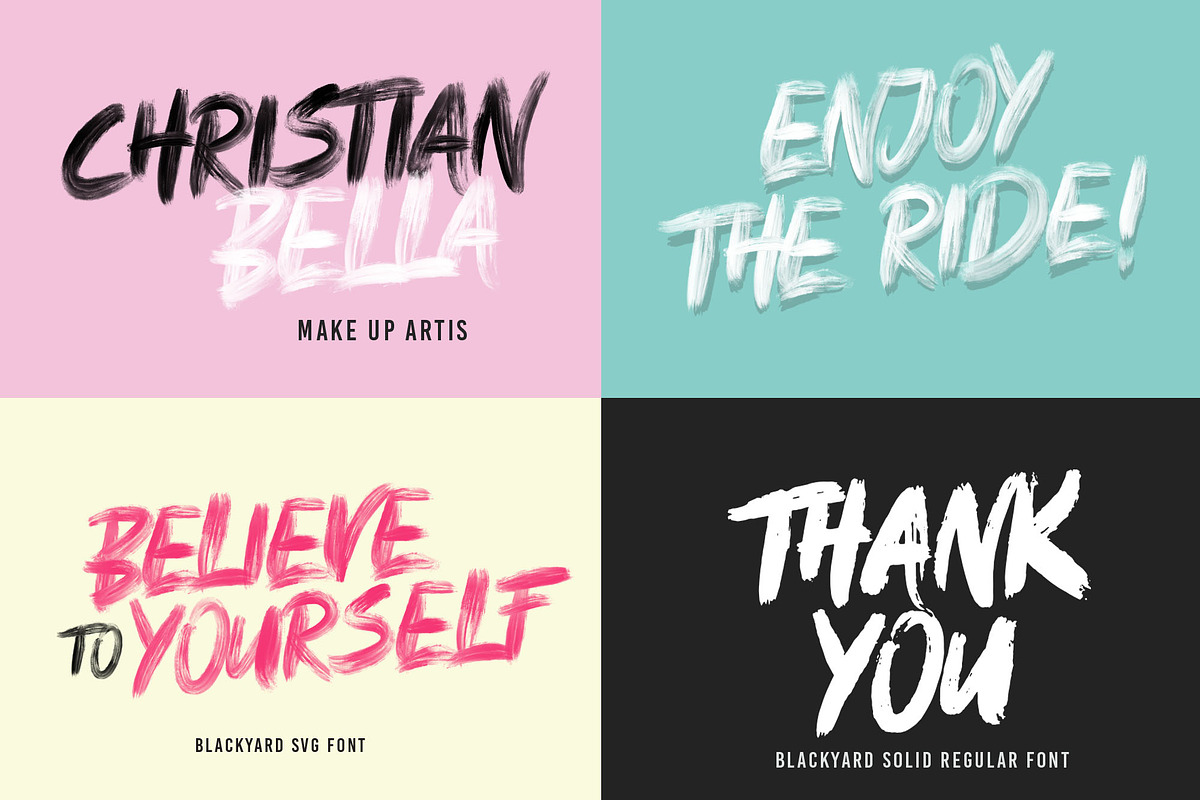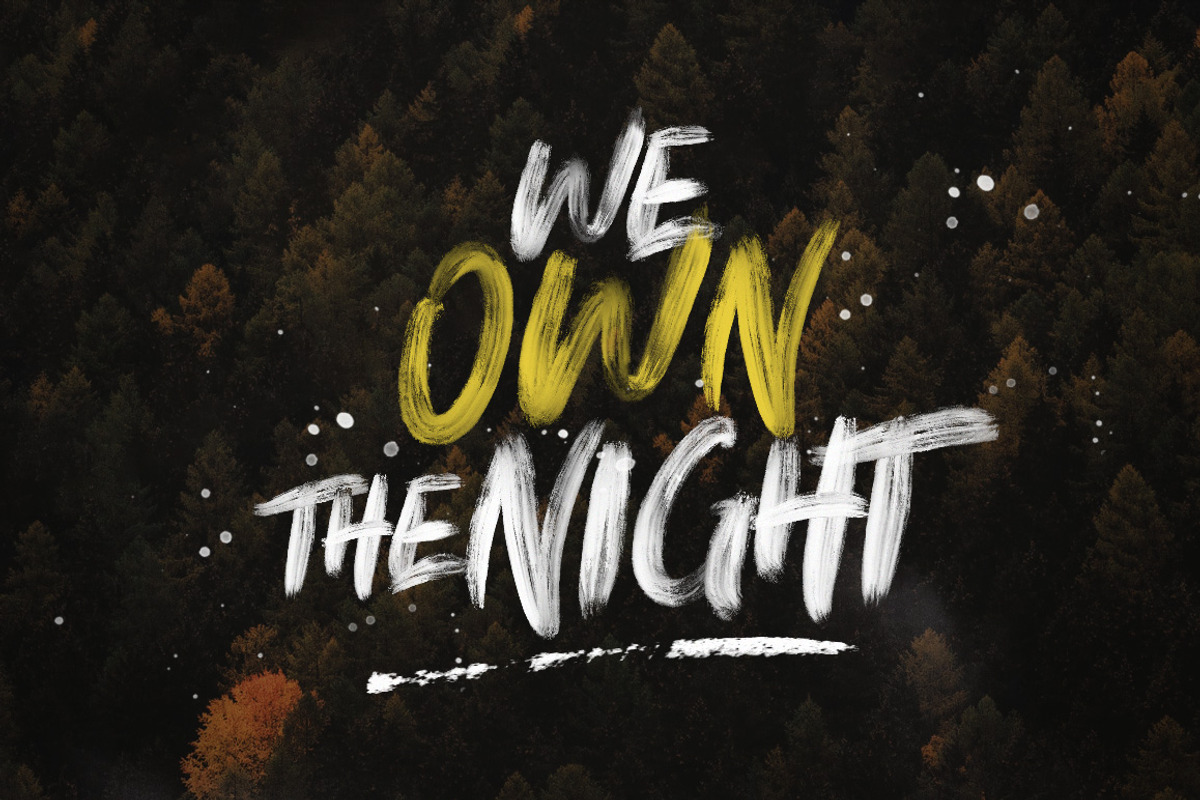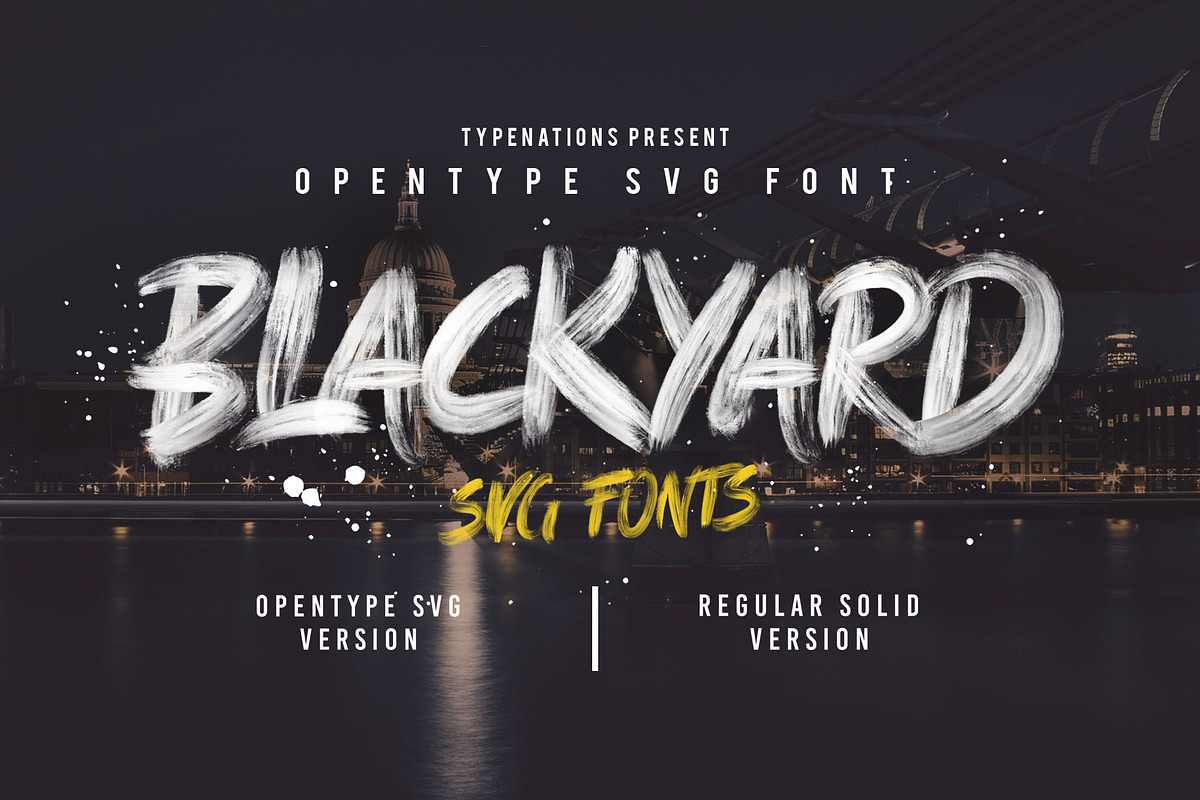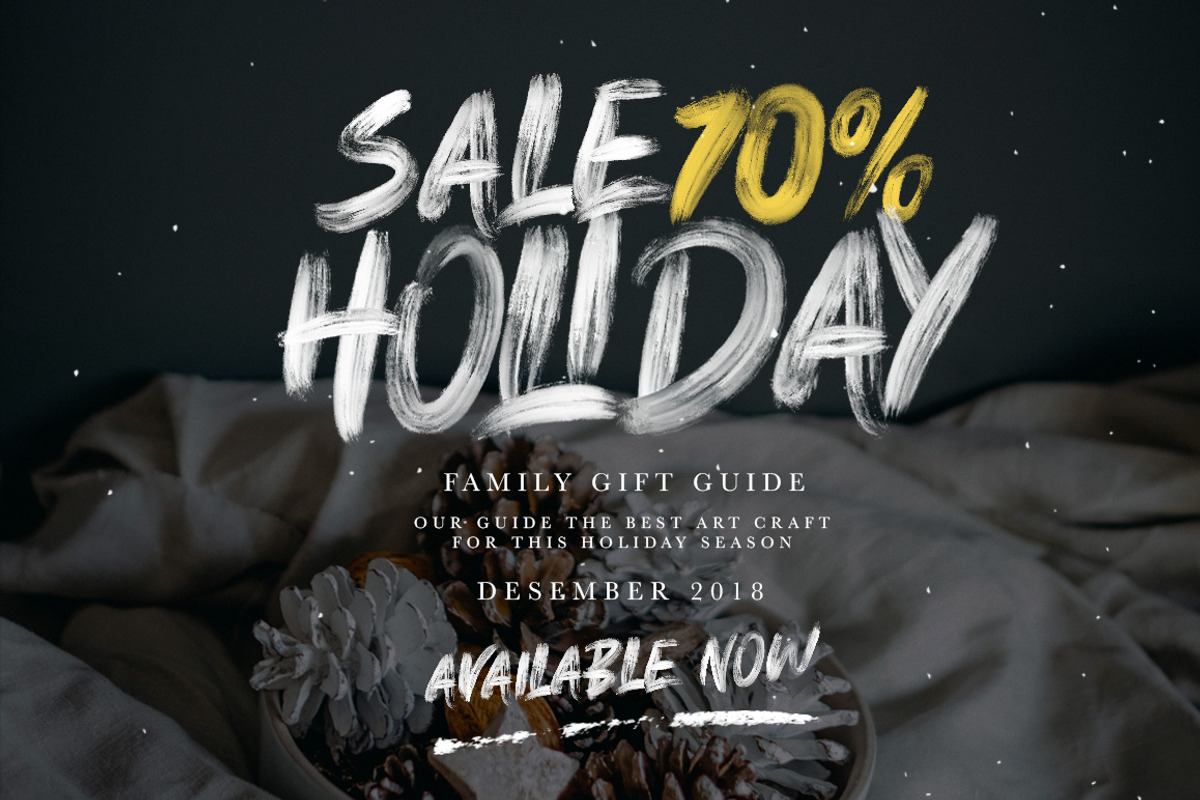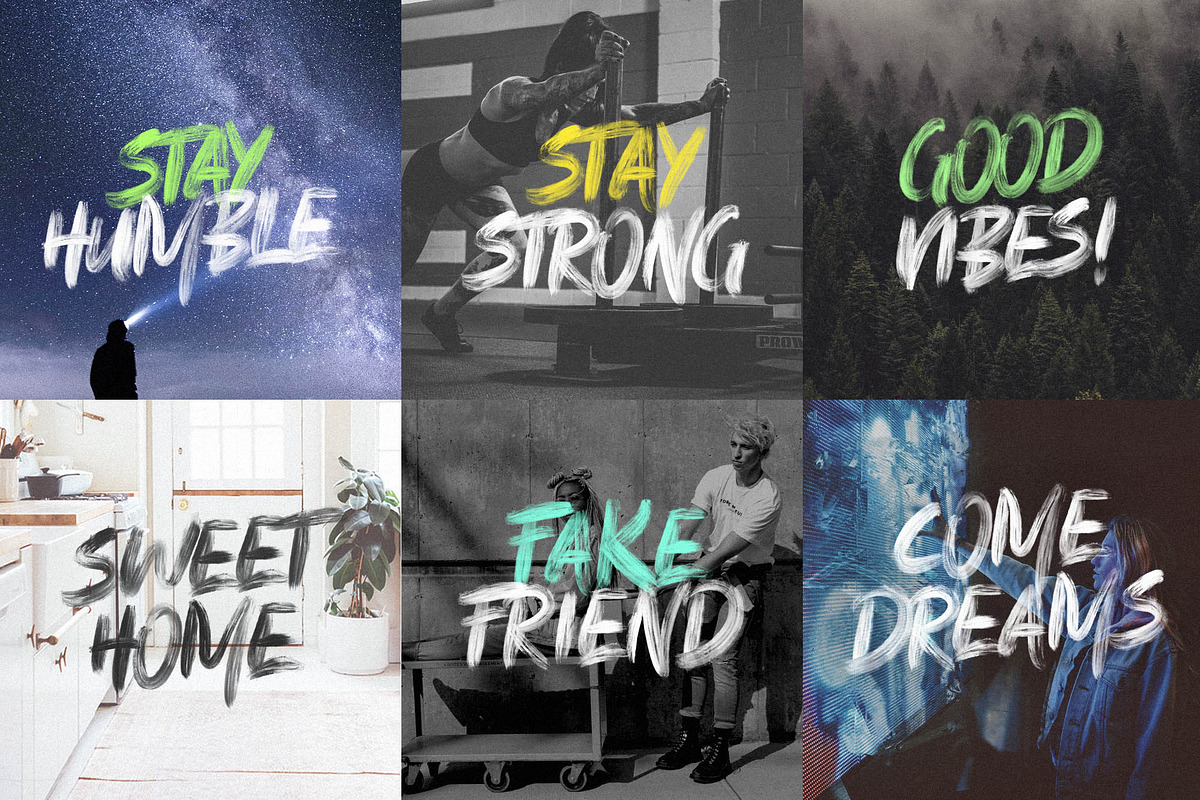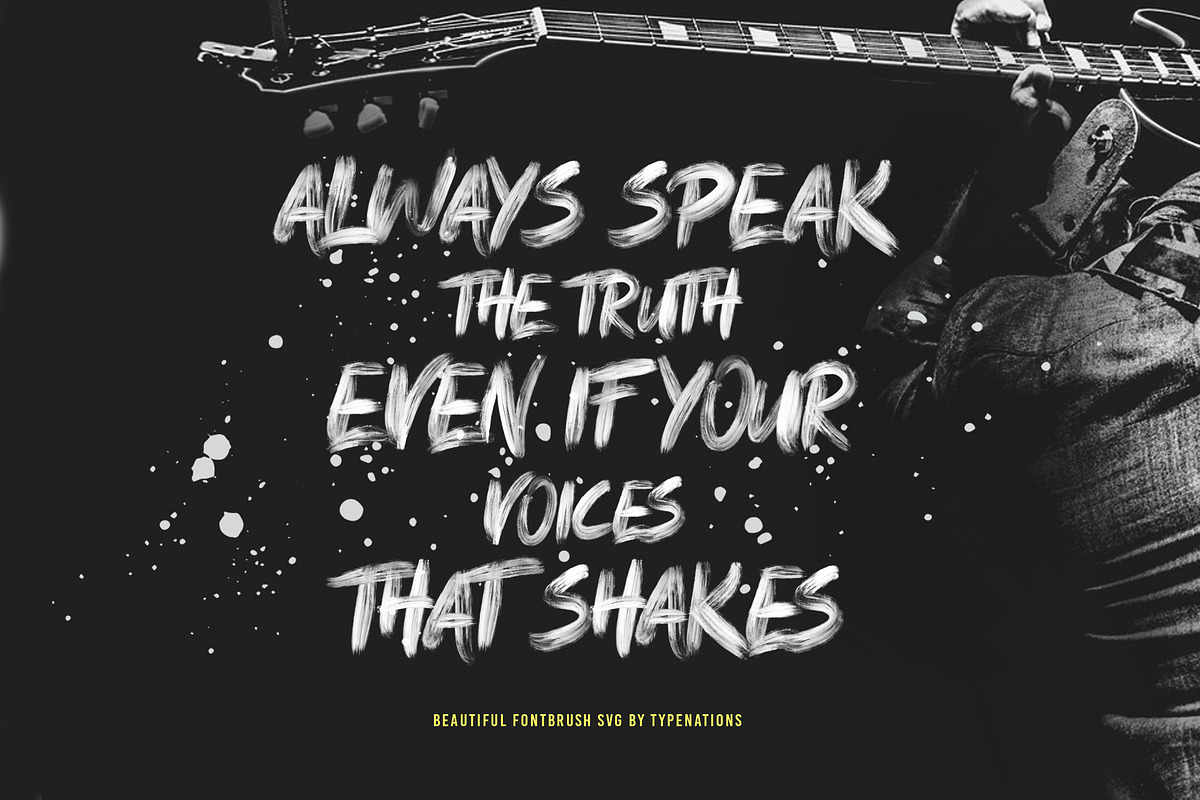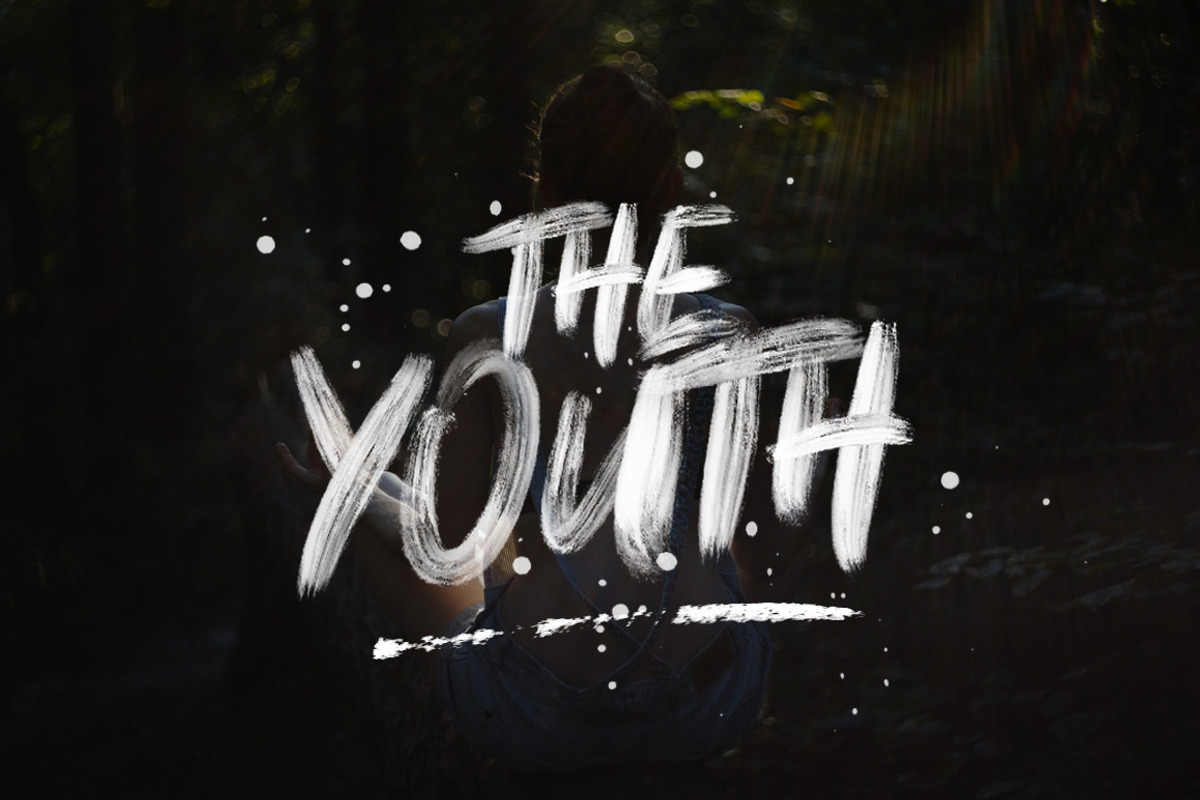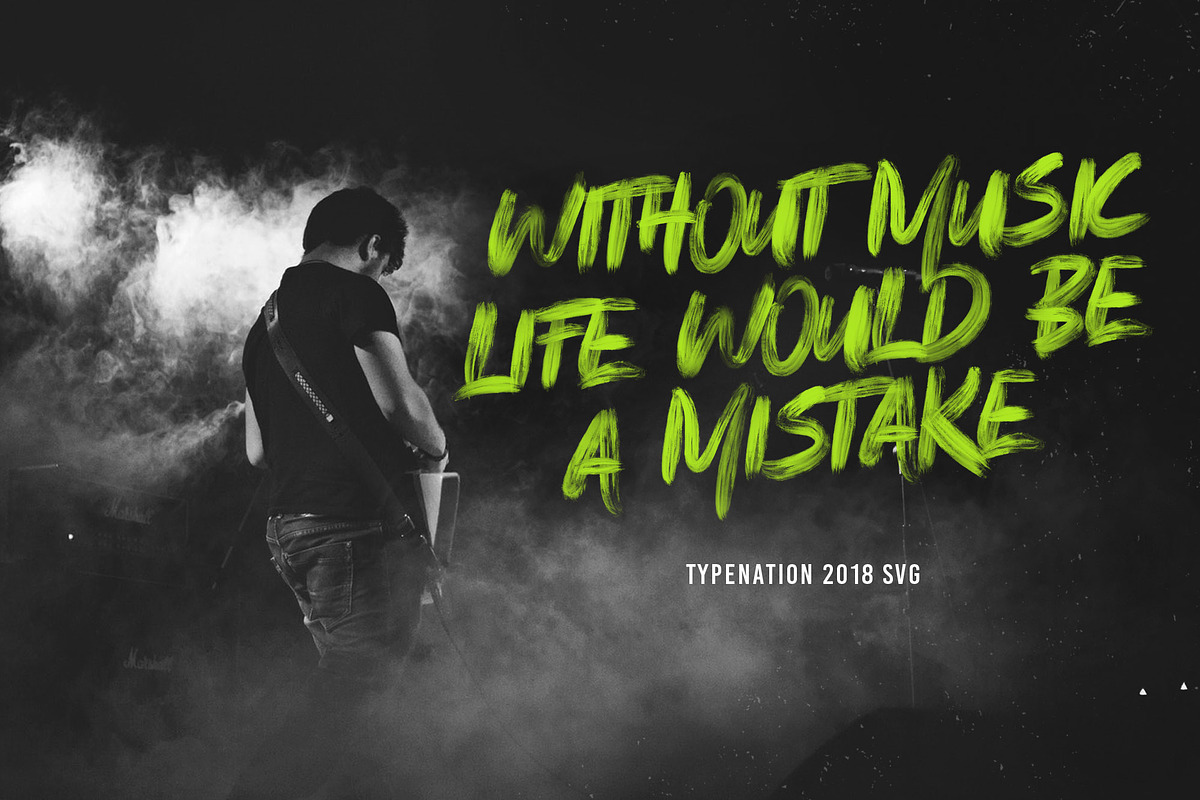
Blackyard OpenType - SVG Font
Blackyard is Original Handwritten letters. Using new Opentype-SVG font technology to provide super high resolution paint strokes completely built in to the font as a transparency. This font can be used for vintage themes or themes with contemporary styles. Blackyard perfect to use for anything from promotional material and handwritten quotes, to product packaging, merchandise, branding projects, Etc.
Blackyard OpenType - SVG Font by Typenations fits naturally into Branding, posters, packaging, typography.